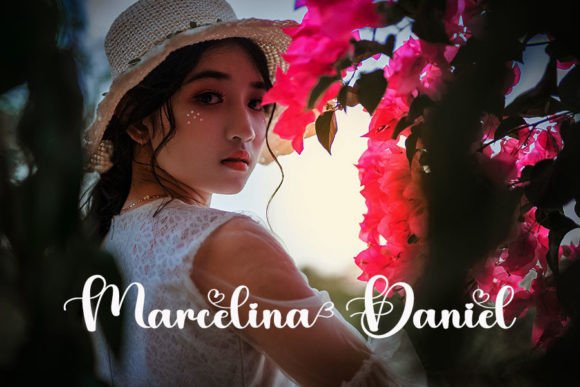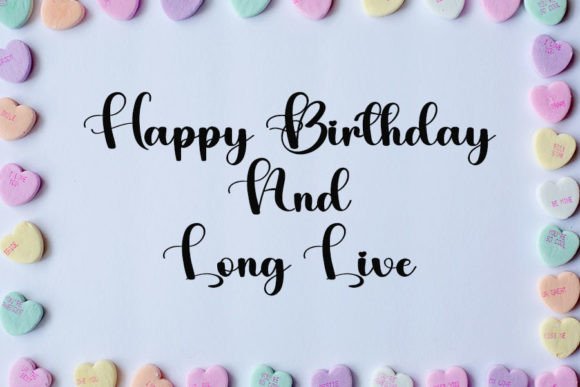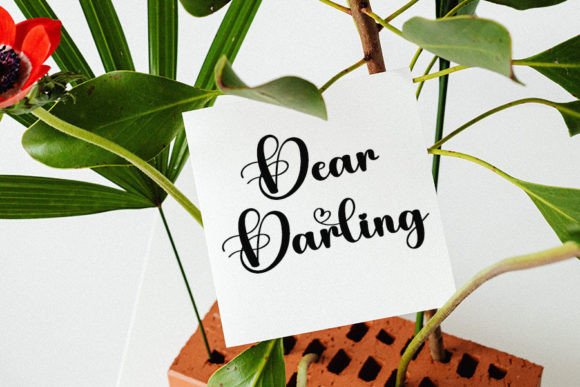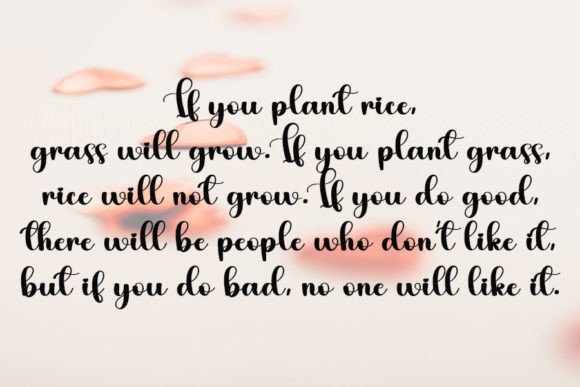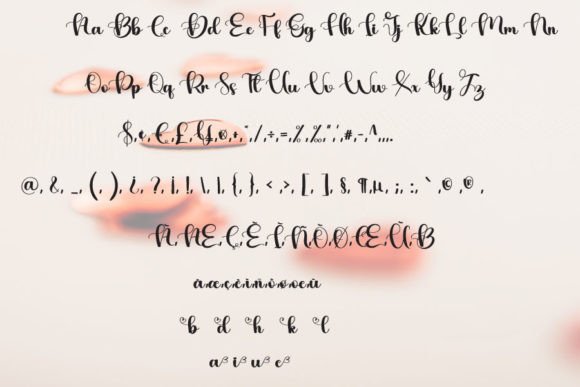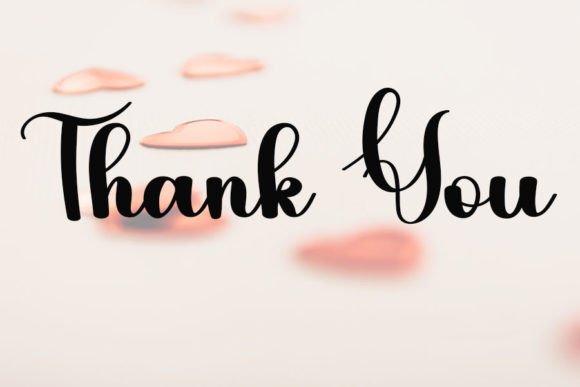
Soulmate Font
About Soulmate Font
Introducing “Soulmate” – Your Sweet and Exquisitely Beautiful Handwritten Font!
“Soulmate” is more than just a font; it’s a masterpiece that infuses sweetness and beauty into your designs. With characters that elegantly dance along the baseline, “Soulmate” brings a touch of luxury and sophistication to every creative project you embark upon!
This font is a true gem, designed to add a sense of refinement and elegance to your work. Whether you’re crafting romantic wedding invitations, designing captivating logos, or creating exquisite branding materials, “Soulmate” is the perfect choice to make your designs shine like never before.
The characters in “Soulmate” are like graceful dancers, adding a touch of sparkle and glamour to your typography. With this font at your fingertips, your projects will exude a sense of luxury and beauty that is absolutely enchanting.
Picture using “Soulmate” to create charming love letters, alluring product packaging, or to infuse a sense of grace into your website’s headlines. The possibilities are limitless, and “Soulmate” is here to assist you in crafting designs that leave a lasting impression.